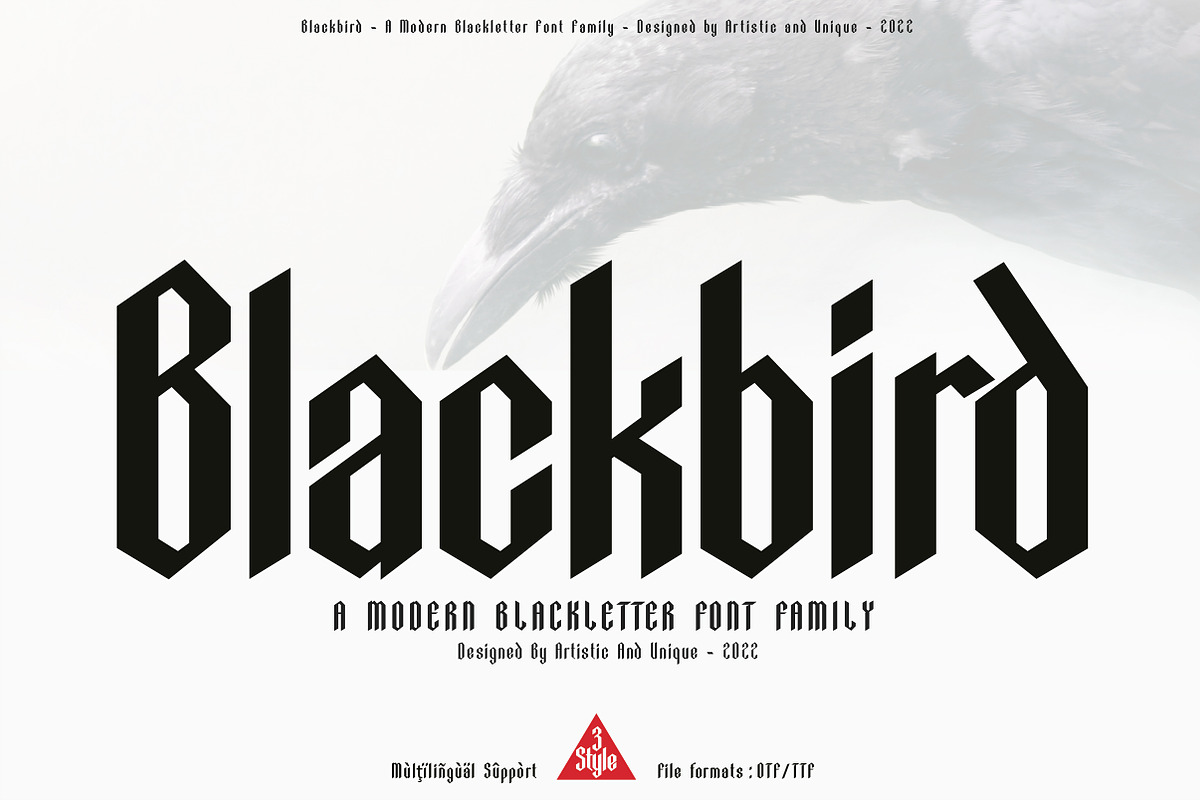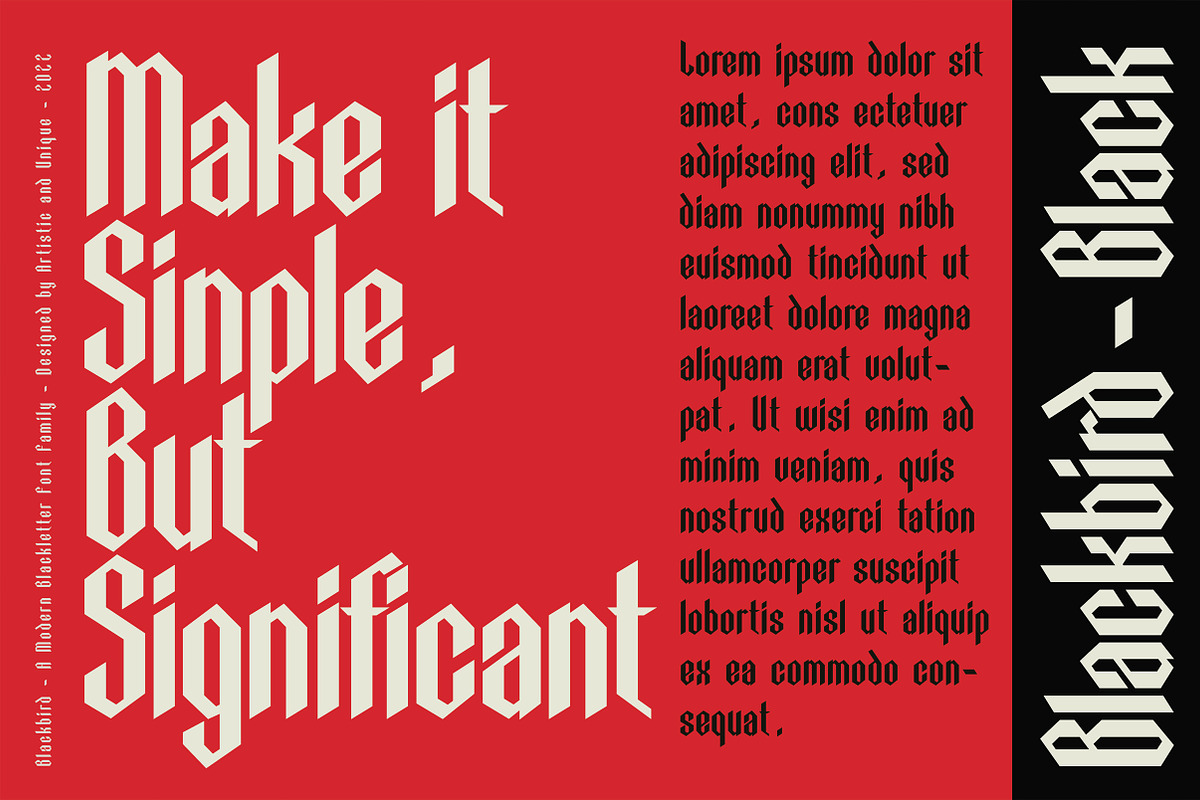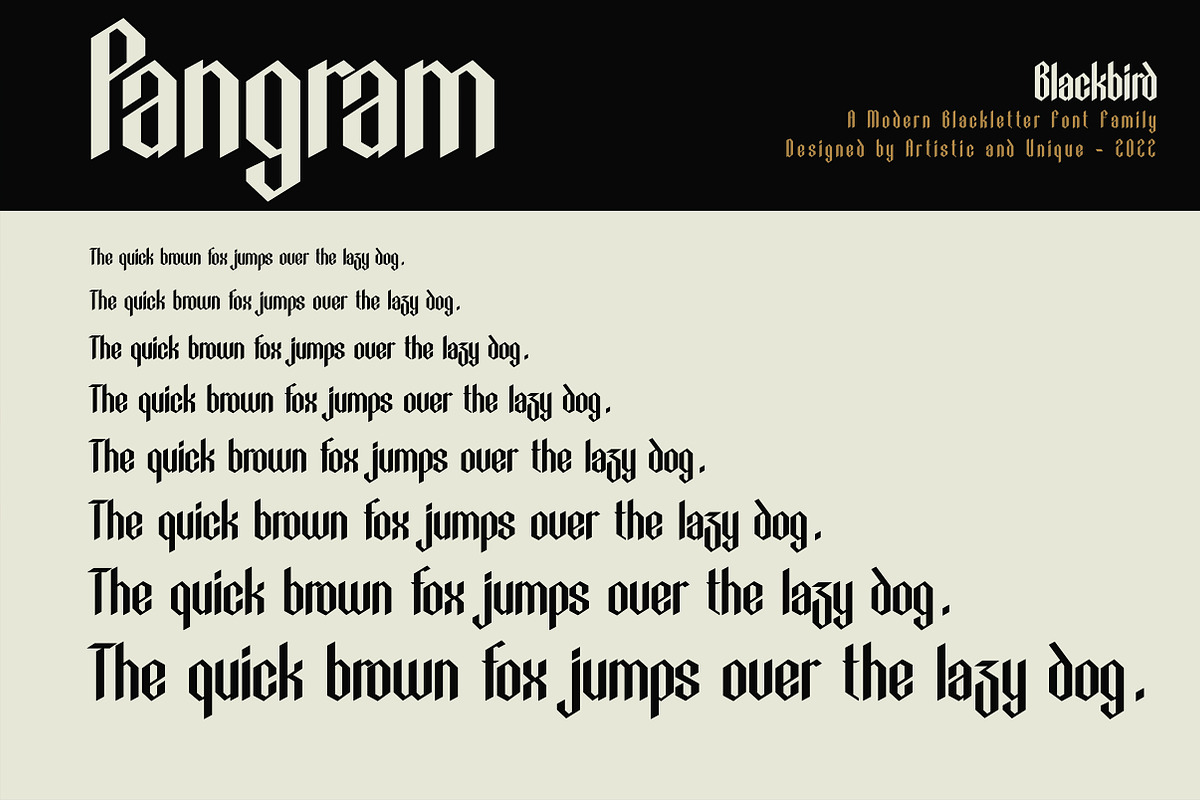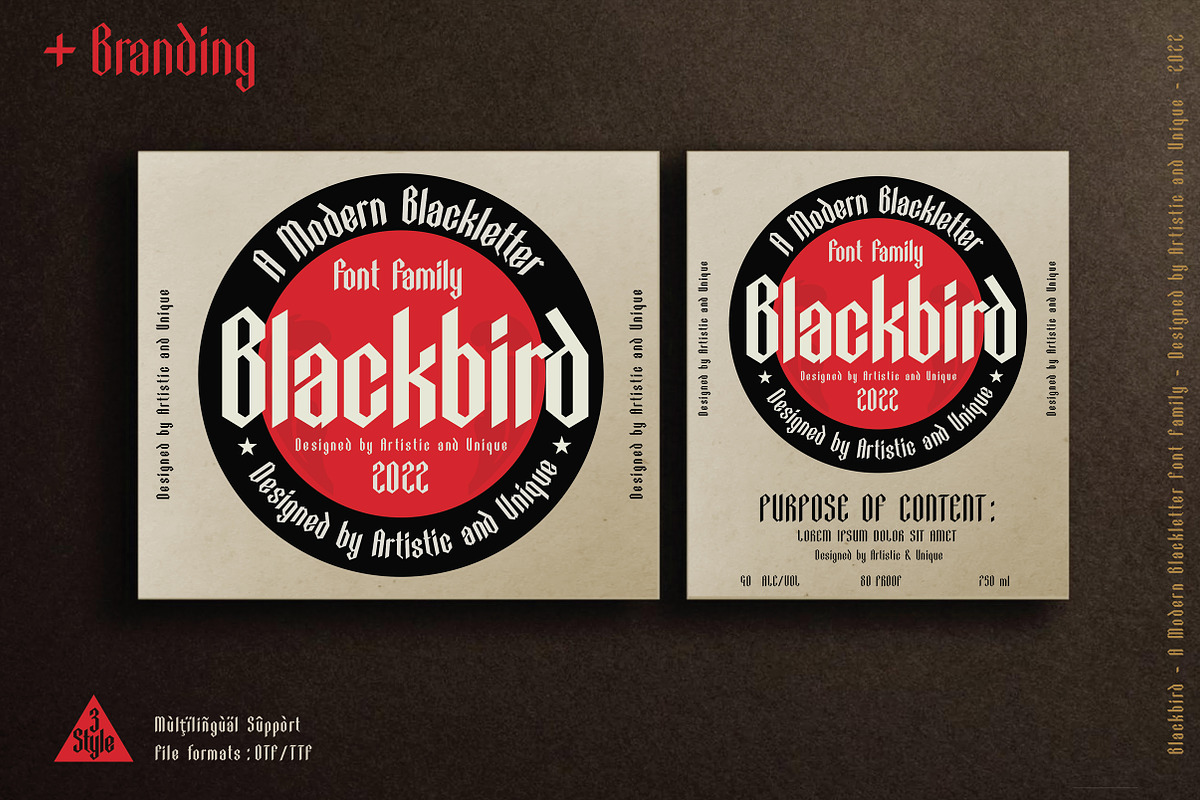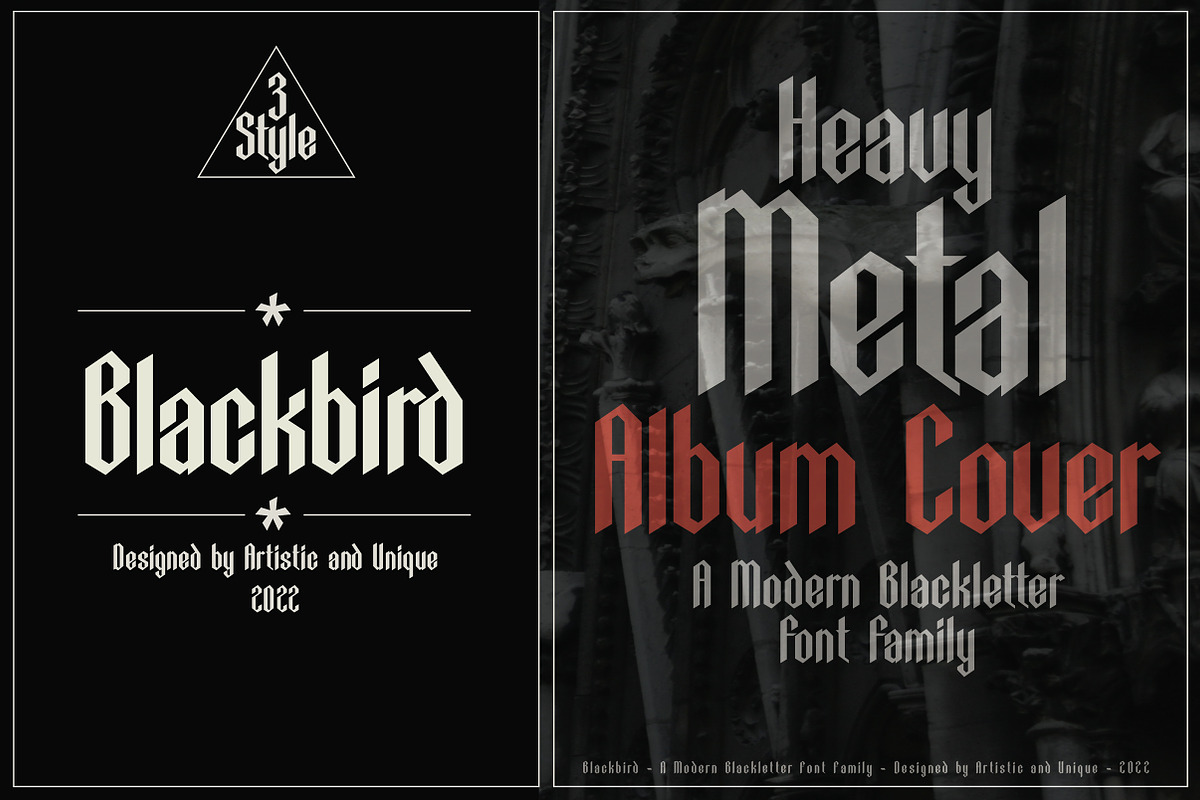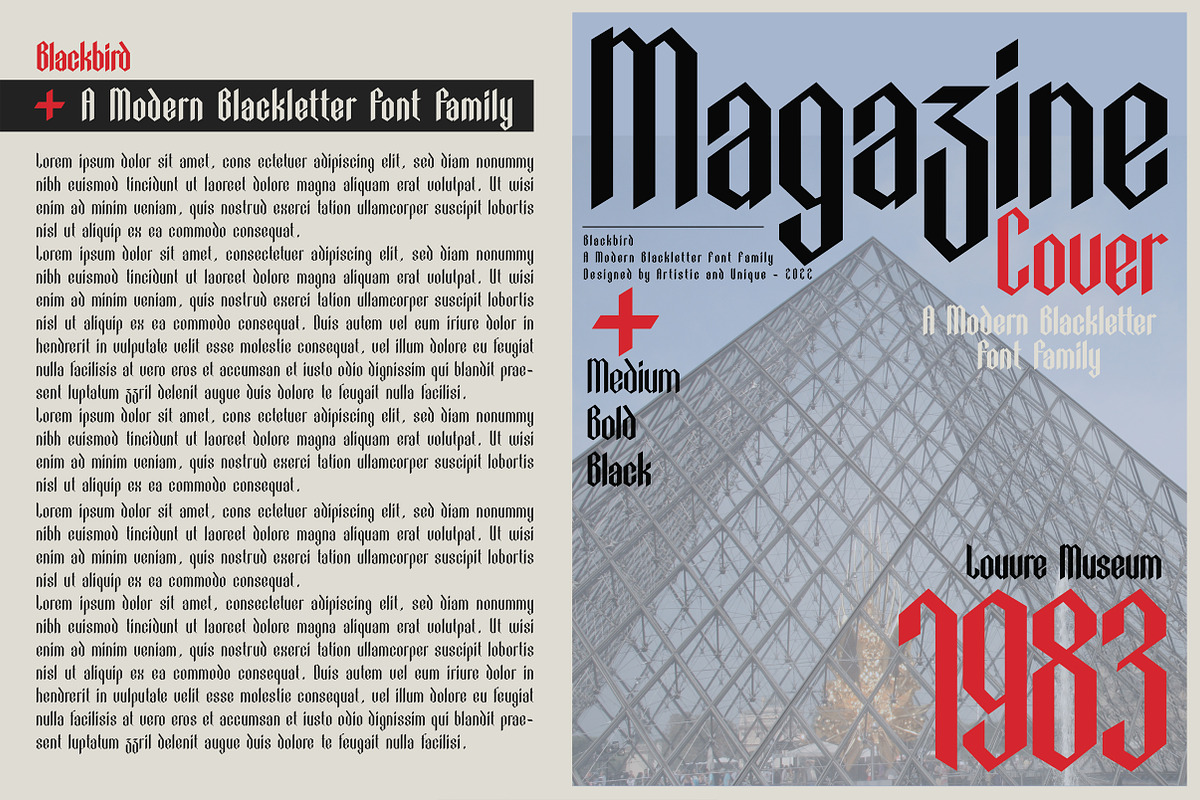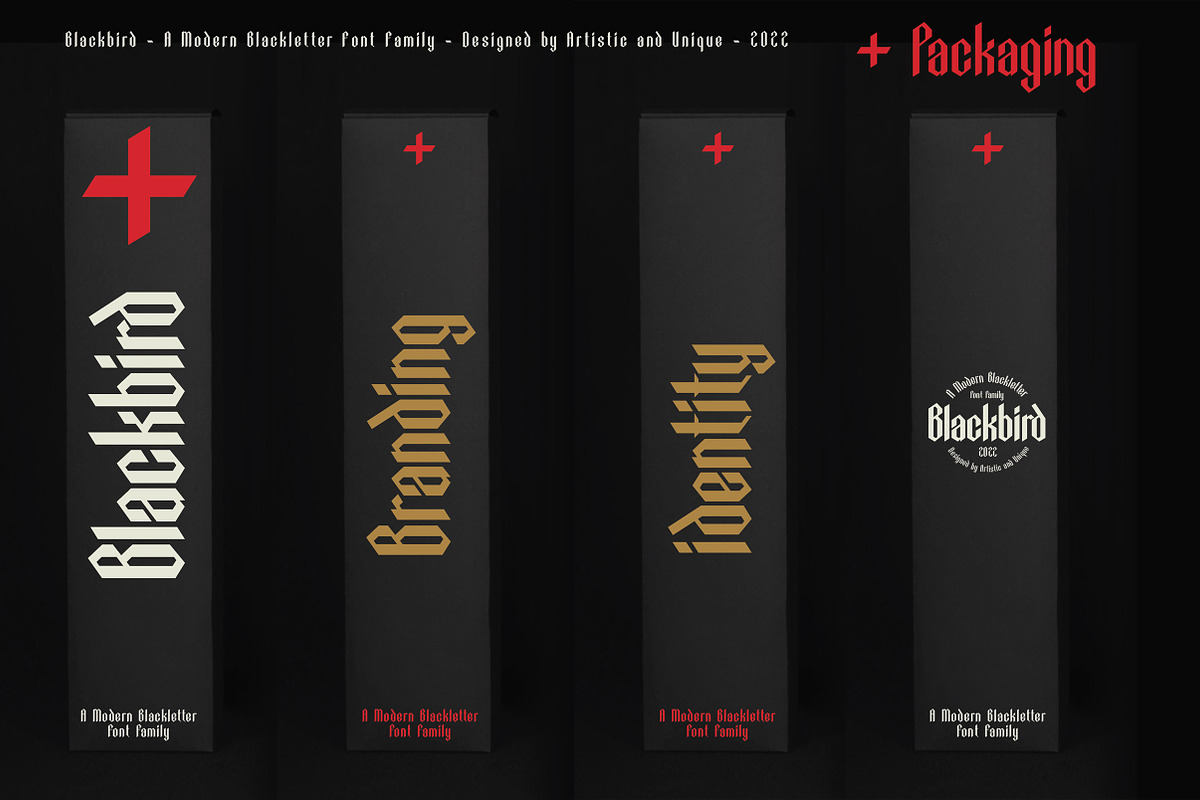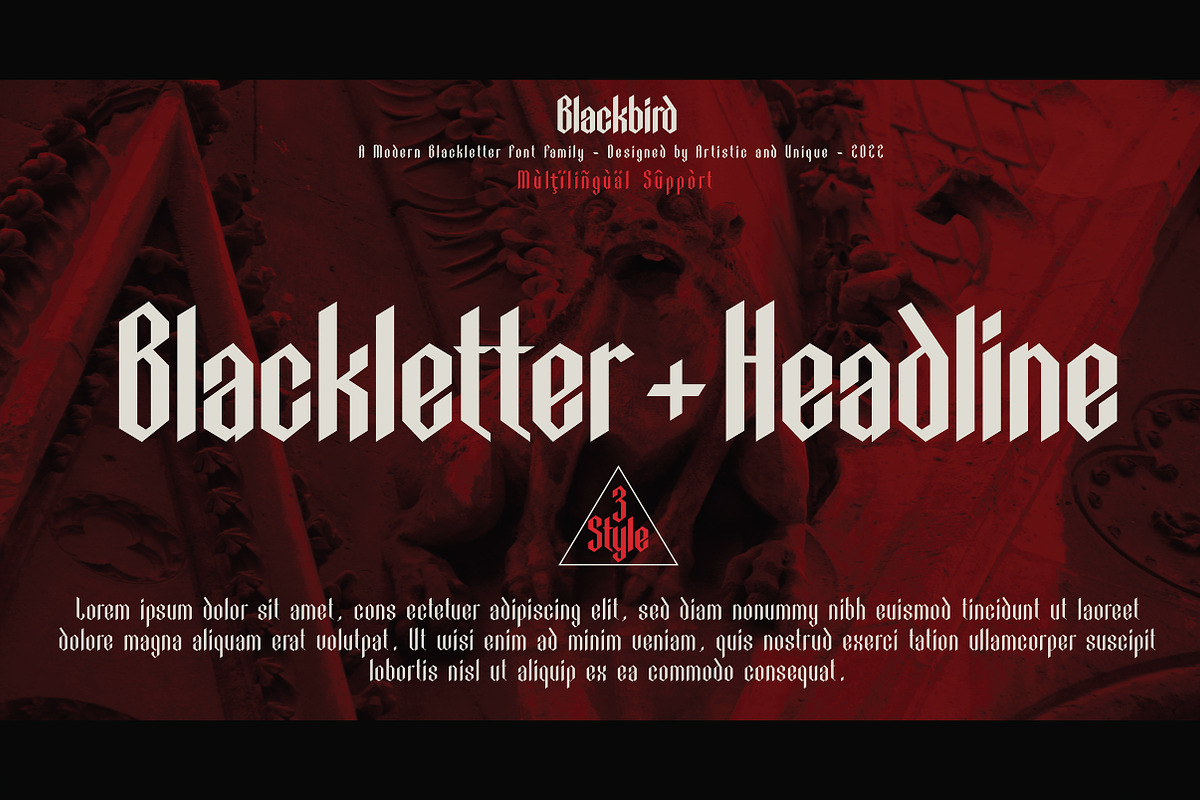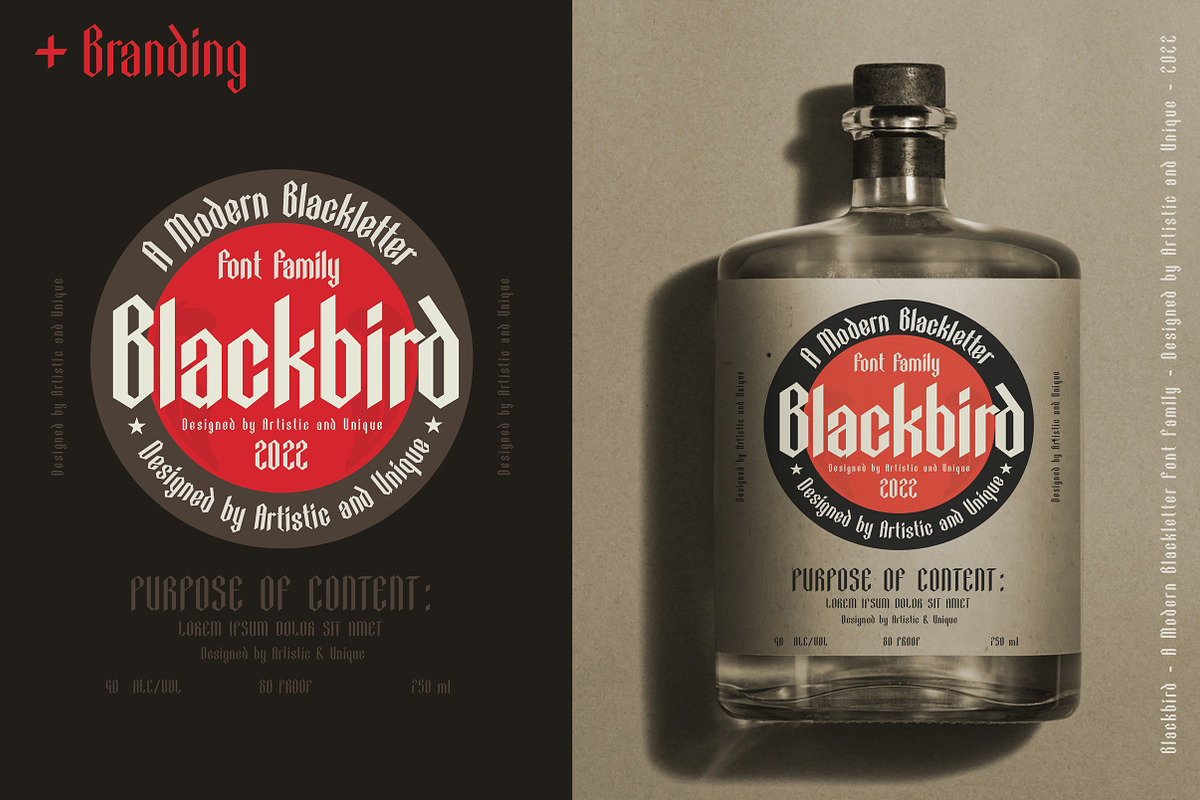
Blackbird - Blackletter font family
A modern Blackletter font family. Blackbird font is inspired by Gothic and calligraphic style typography.It has clean and sharp lines that are more readable by synthesizing old and new.If you are looking for a font with these features, Blackbird can meet your needs.
This font is equipped whit natural calligraphic - gothic synthesis characteristic and multilingual support.Font; ideas for headlines, flayers, greeting cards, product packaging, book and magazine covers, logotypes, apparel design, tattoo design, album covers.
- Latin simple,
- Multilingual ,
- 3 Style : Medium, Bold, Black,
- Glyph count : 235,
With this font you can create your unique designs.